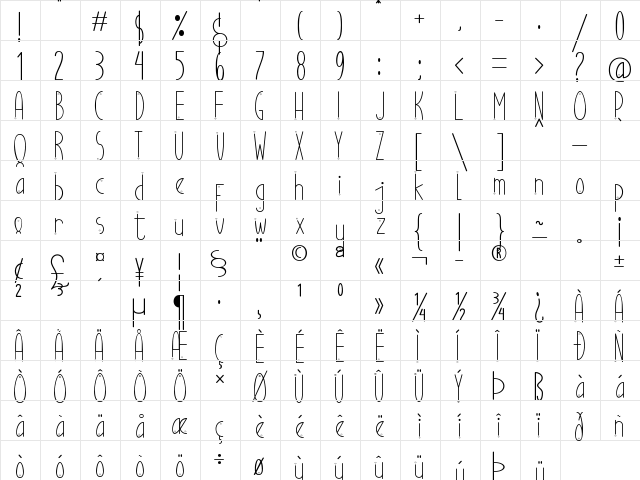
Ubur Ubur with Love alternatif1 Regular
| Designer | Aldedesign 2018 |
Design Context for Ubur Ubur with Love alternatif1 Typeface
Ubur Ubur with Love alternatif1 is a composed and adaptable typeface that performs quietly and consistently across a wide range of design contexts.